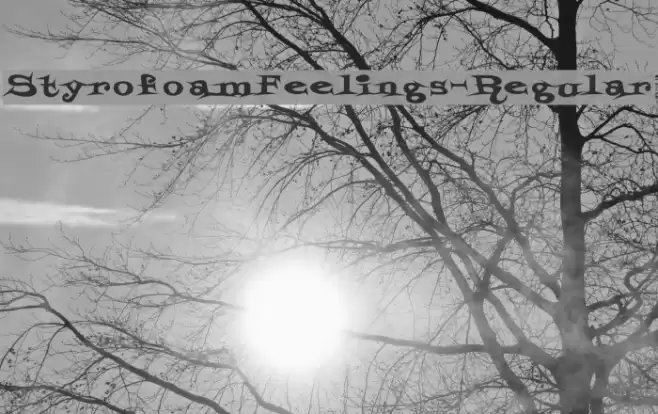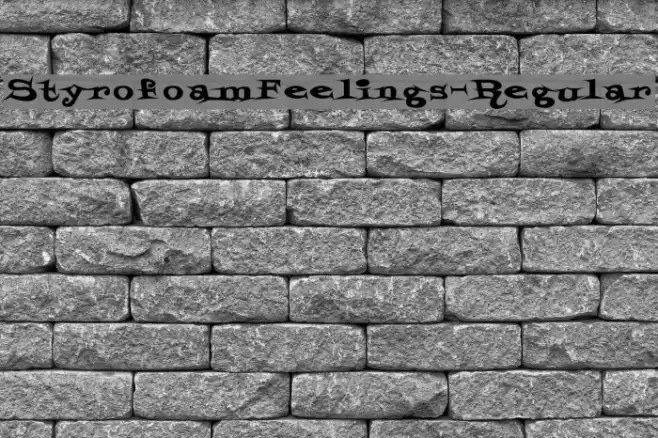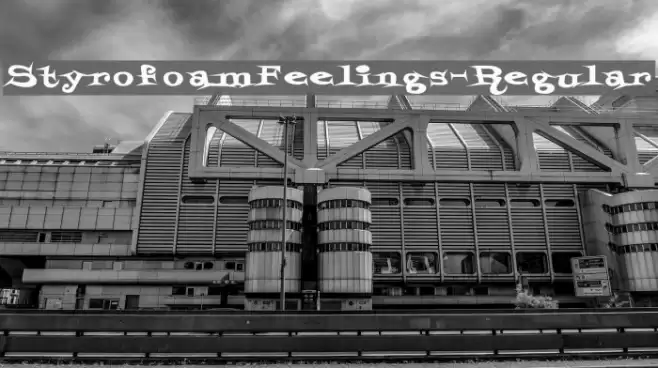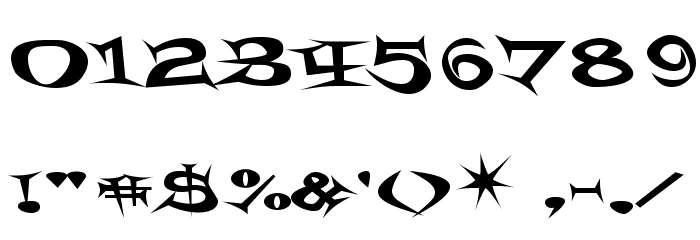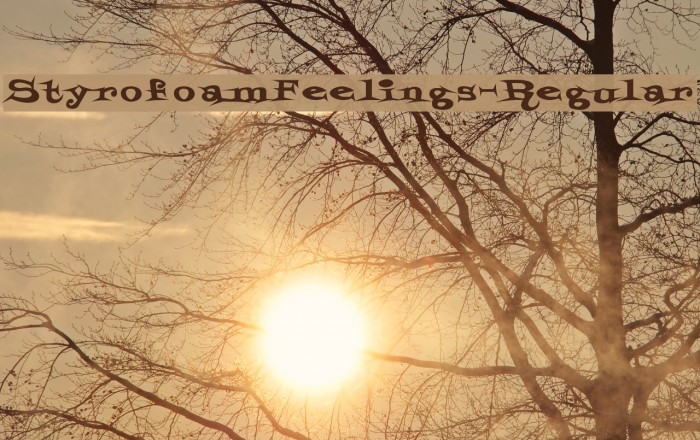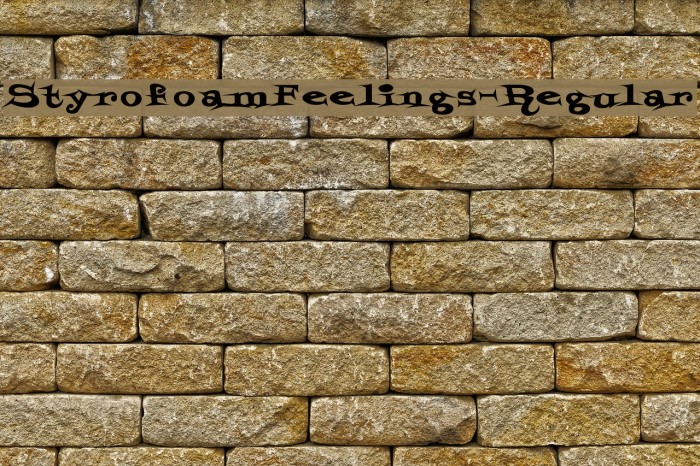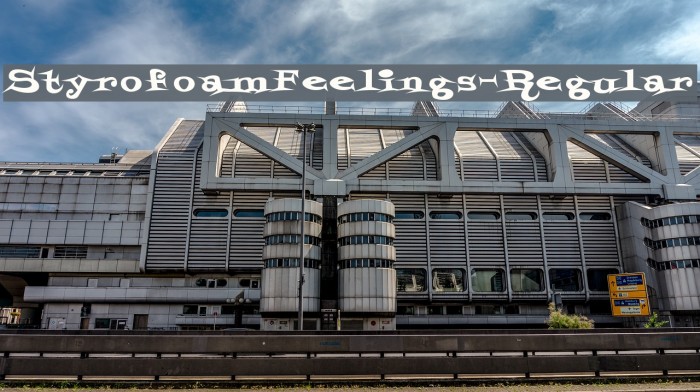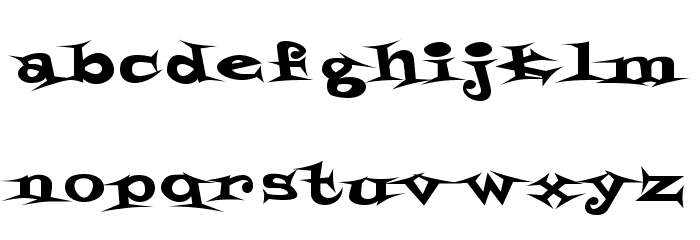
StyrofoamFeelings-Regular Font
StyrofoamFeelings-Regular Description
This font features a bold and edgy design with sharp, angular elements that give it a distinctive, rebellious feel. The characters are heavily stylized with spikes and irregular shapes, creating a sense of movement and energy. The uppercase and lowercase letters maintain a consistent theme, with exaggerated serifs and unique flourishes that make each character stand out. Numbers and special characters follow the same design principles, ensuring a cohesive look across all glyphs. The font's dramatic appearance makes it ideal for projects that require a strong visual impact.
A bold, edgy font with sharp, angular elements and a rebellious feel from Uncategorized fonts.
- Proposed Projects: Ideal for music album covers, event posters, skateboarding brands, and edgy fashion labels.
- Overall Style: Modern, Decorative